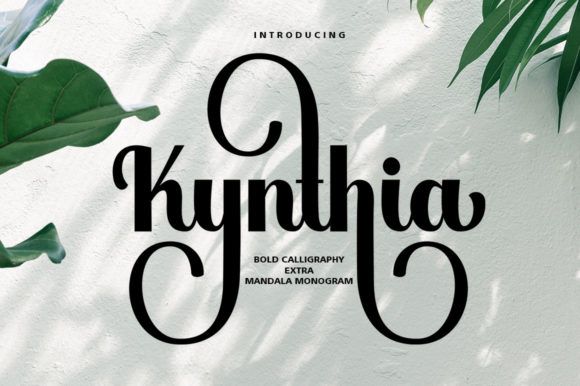
Behold the elegance of Kynthia Font, a captivating script font that radiates beauty and charm. Designed with the utmost precision and care, this exquisite font will add a touch of sophistication to your creative endeavors. Whether you're crafting enchanting wedding invitations, designing captivating logos, or composing heartfelt love letters, Kynthia Font will elevate your words and make them sing. With its graceful curves, delicate swashes, and alluring ligatures, this font is sure to leave a lasting impression on your audience.
Crafted with the utmost care and attention to detail, Kynthia Font embodies the essence of timeless beauty. Its flowing lines and elegant flourishes evoke a sense of romance and nostalgia, making it the perfect choice for those seeking to create truly captivating designs. Let your imagination soar as you explore the endless possibilities that await with Kynthia Font. From enchanting invitations to stunning logos, this font will transform your creative vision into a visual masterpiece.
Unleash the full potential of your creativity with Kynthia Font. Whether you're a seasoned designer or just starting your artistic journey, this versatile font will empower you to produce stunning designs that will captivate and inspire. Its intuitive and user-friendly design makes it accessible to both professionals and hobbyists alike, ensuring that your creative vision is brought to life with ease. Embrace the transformative power of Kynthia Font and watch your designs blossom into works of art.
With Kynthia Font, the possibilities are boundless. Dive into a world where your imagination reigns supreme and your creativity knows no limits. Let this exquisite font guide you on a journey of artistic exploration, where every design tells a captivating story. Embrace the allure of Kynthia Font and elevate your creative endeavors to new heights.